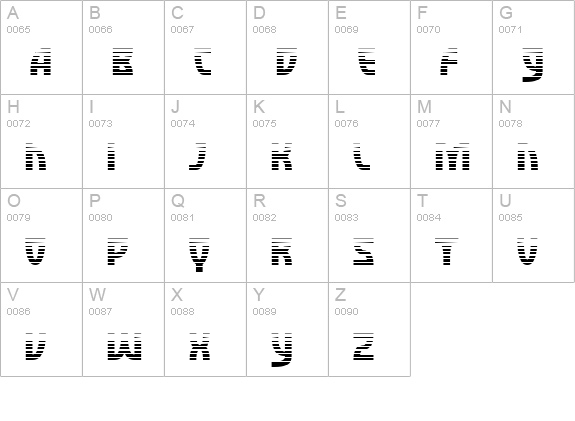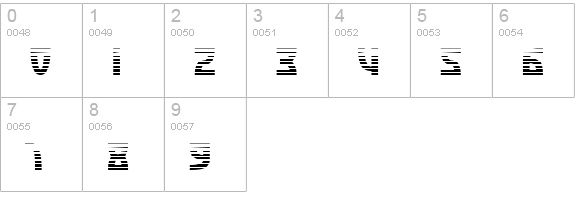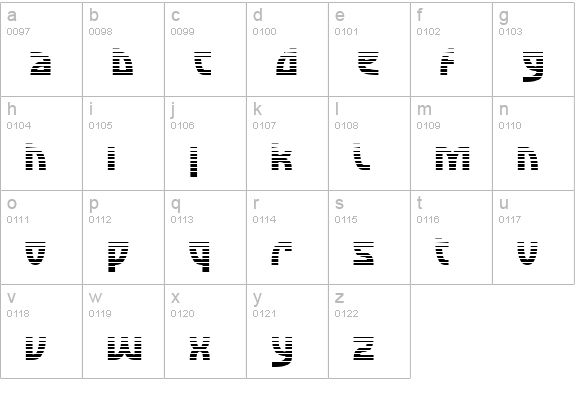
SF Retroesque FX Font Details
SF Retroesque FX is a captivating font that effortlessly captures the essence of the retro era with a modern twist. Its bold and eye-catching design is perfect for adding a touch of nostalgia to any project. The distinctive geometric shapes and vibrant color scheme evoke a sense of vintage charm, making it ideal for retro-themed designs, posters, branding, and more. This font is not only visually appealing, but it also offers versatility and functionality. With its legible letterforms and unique FX effects, SF Retroesque FX is guaranteed to make your designs stand out from the crowd. Whether you're creating a logo for a 70s-inspired brand or designing a flyer for a retro dance party, this font will undoubtedly make a lasting impression. One of the best parts about SF Retroesque FX is that it is absolutely free. Yes, you read that right! This incredible font is freely available to download at FontsMarket.com. You can easily access this font and start incorporating its retro charm into your designs without spending a dime. So why wait? Unleash your creativity and embrace the retro vibes with SF Retroesque FX. Download it for free today at FontsMarket.com and let your designs transport your audience to the golden age of style and sophistication.